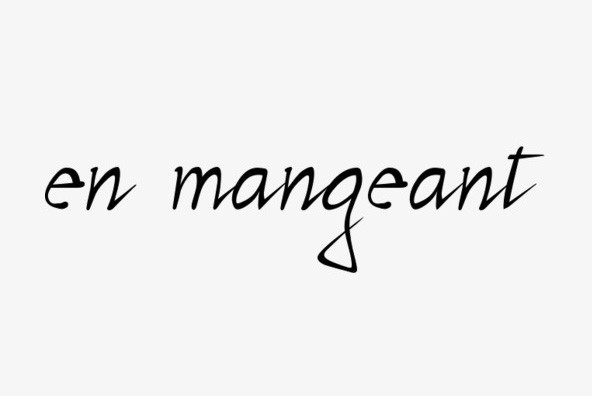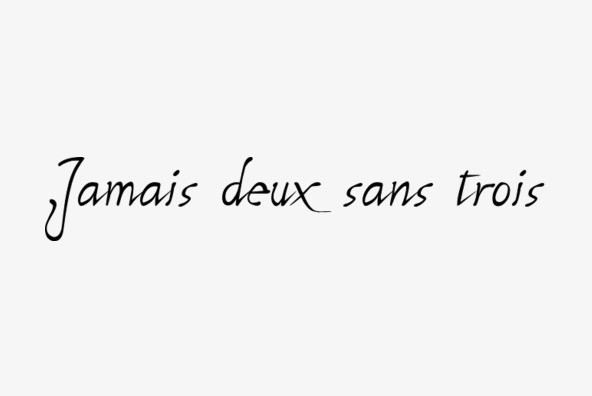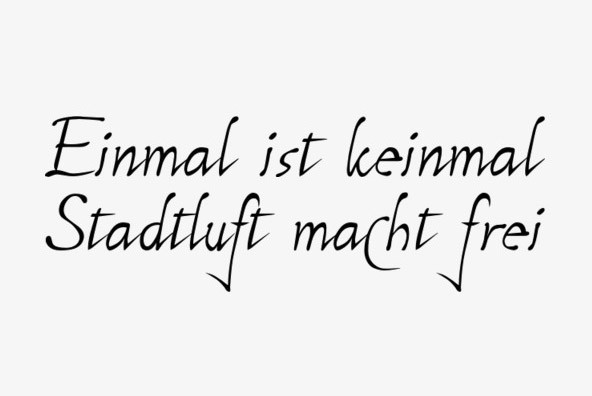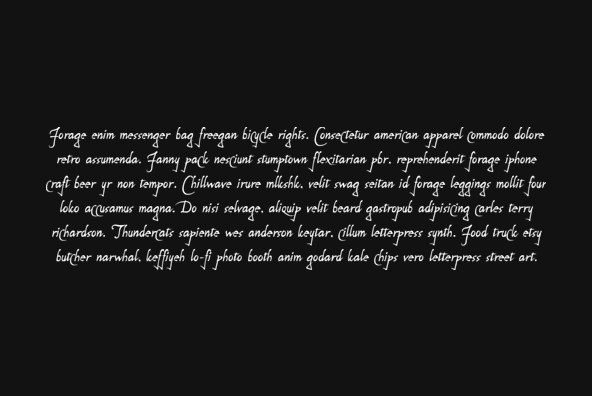
P22 Michelangelo Regular
The great French sculptor August Rodin was strongly inspired by the Italian sculptor, painter and poet Michelangelo. Created in association with the Philadelphia Museum of Art, this font set is a tribute to the achievements of both extraordinary artists.